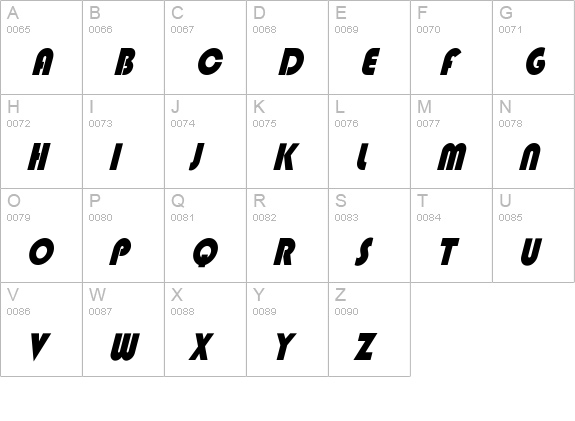
BixleeCndObl-Heavy is a heavy, high-impact variant in the BixleeCndObl typeface family \xE2\x80\x94 well suited to high-impact headlines, posters, and display advertising.
BixleeCndObl-Heavy font is a modern and sophisticated typeface that exudes strength and elegance. With its condensed and bold design, this font is perfect for making a bold statement in your designs. The sharp angles and sleek lines of BixleeCndObl-Heavy font give it a contemporary edge, making it ideal for headlines, logos, and branding projects. The best part is that BixleeCndObl-Heavy font is available for free download at FontsMarket.com. You can easily access this versatile font and use it in your personal or commercial projects without any cost. Whether you're designing a poster, website, or any other creative project, BixleeCndObl-Heavy font is sure to make a lasting impression with its bold and impactful appearance. Elevate your designs with this striking font today!